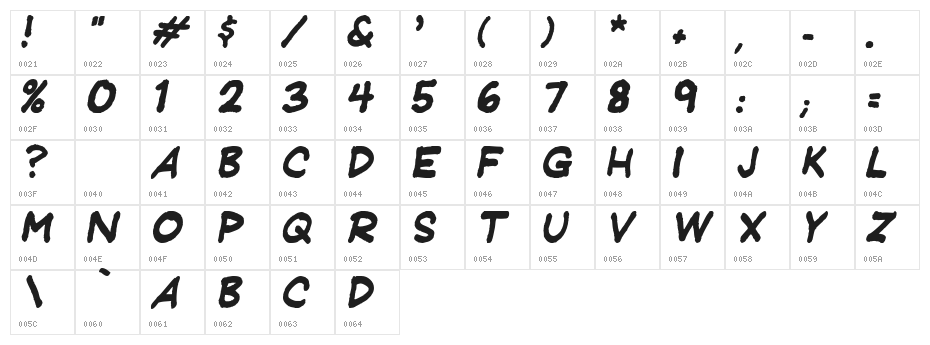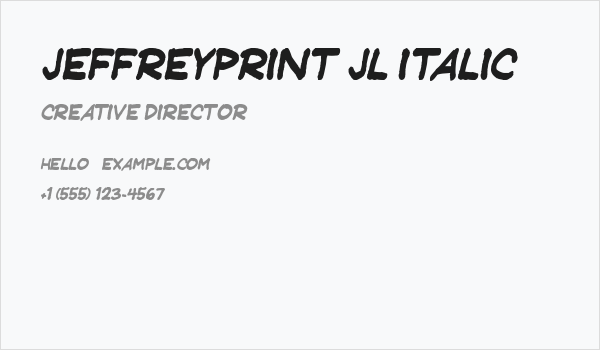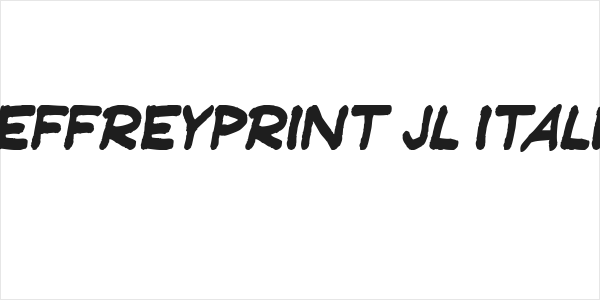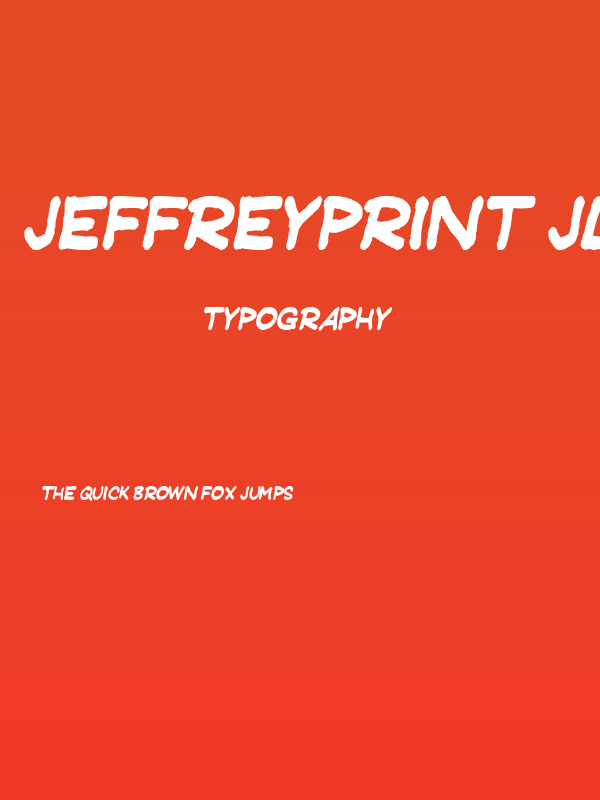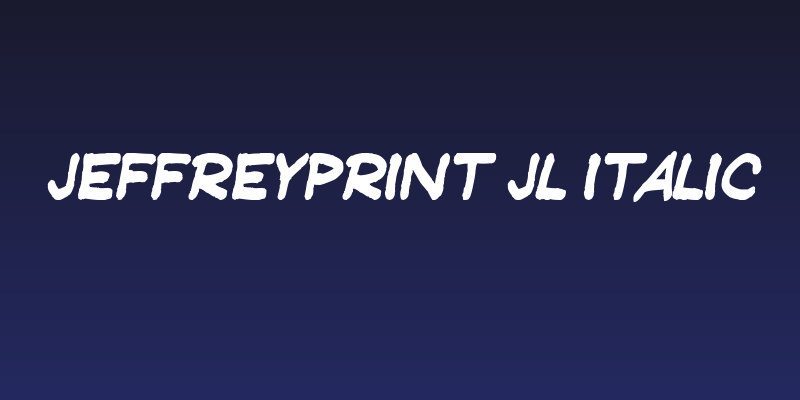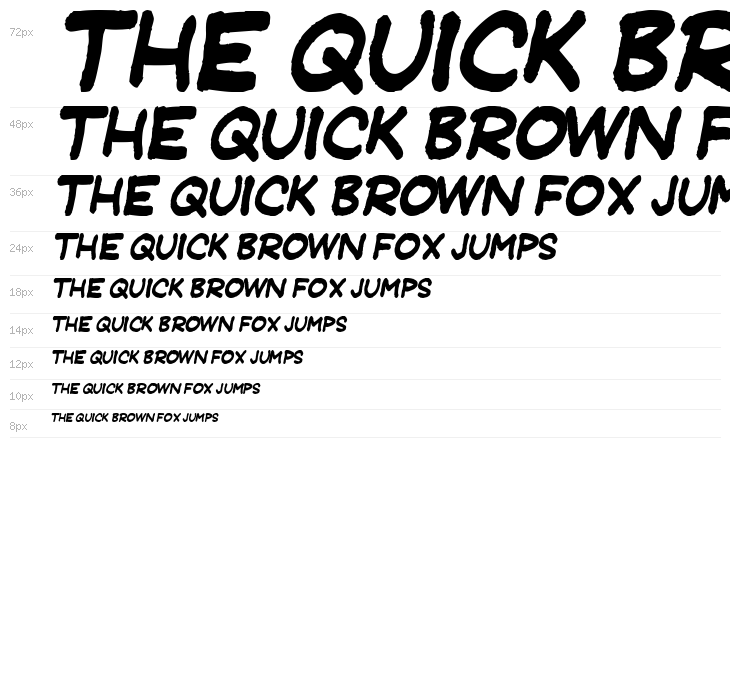
JeffreyPrint JL Italic Font
JeffreyPrint JL Italic Description
This font features a bold and expressive style with a handwritten appearance. The characters are slightly slanted, giving it an italicized look that adds dynamism and movement. The strokes are thick and uneven, creating a textured and organic feel. This font is highly legible despite its artistic flair, making it suitable for various creative applications. The uppercase and lowercase letters maintain a consistent style, while the numbers and special characters complement the overall design. Its unique character makes it stand out, perfect for projects that require a personal touch.
| Proposed Projects | Ideal for posters, branding, packaging, and artistic projects that require a personal and dynamic touch. |